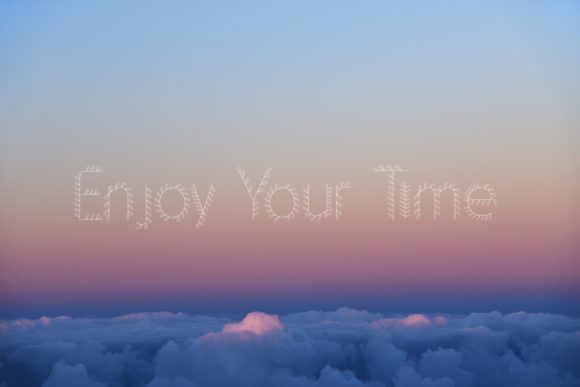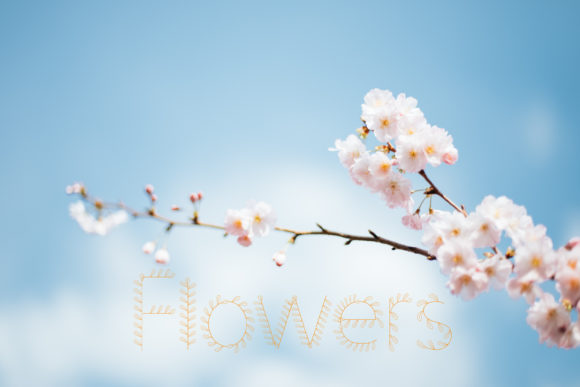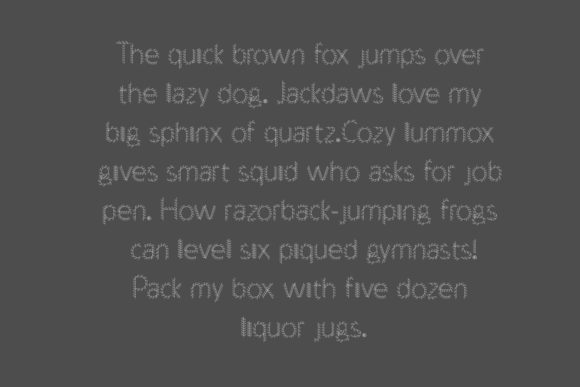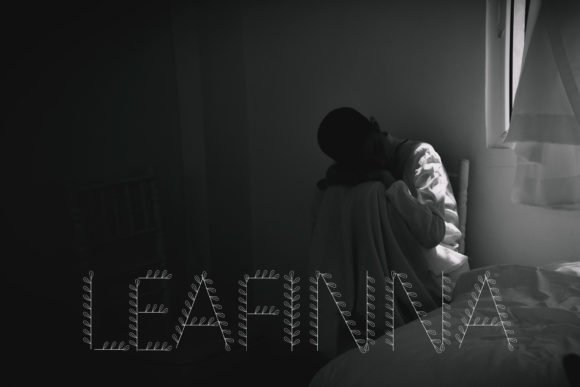
Leafinna Font: Free Download Now
Introduction to Leafinna Font
Leafinna is a unique decorative font, featuring leaf ornaments.
Key Features of Leafinna Font
Why Choose Leafinna Font?
Leafinna Font offers exceptional quality and versatility, making it a valuable addition to your design toolkit. Whether you’re creating for personal projects or commercial use, Leafinna Font delivers professional results.